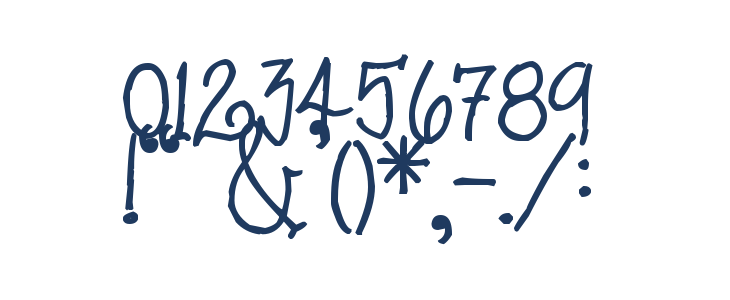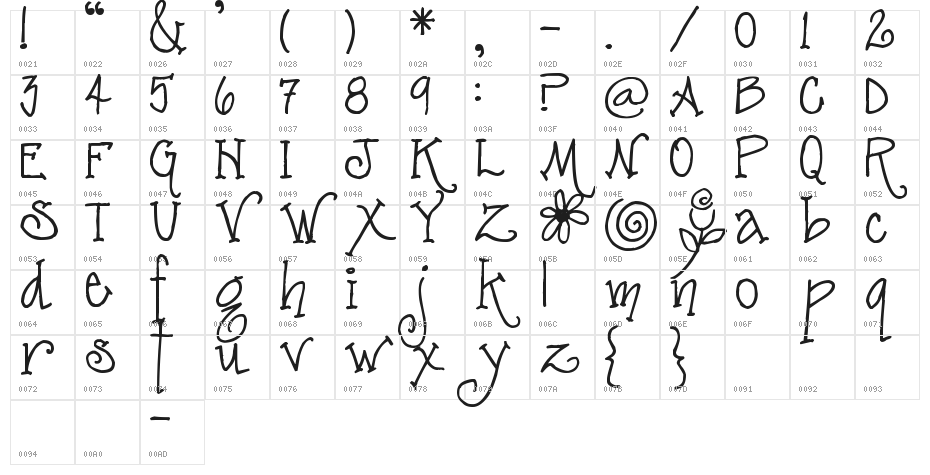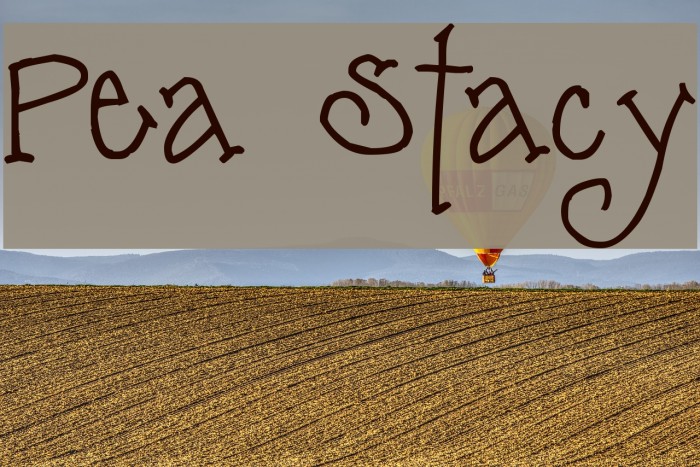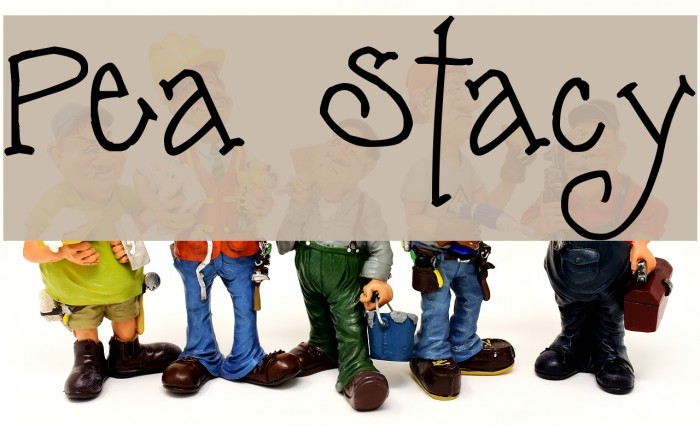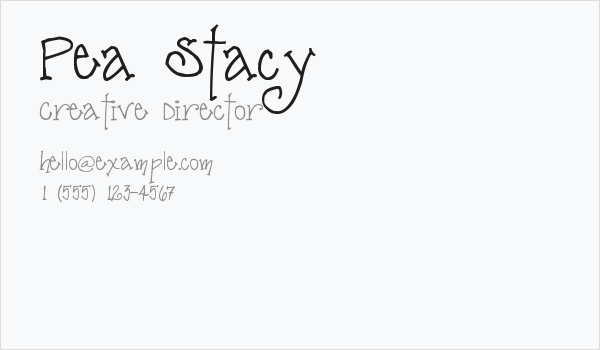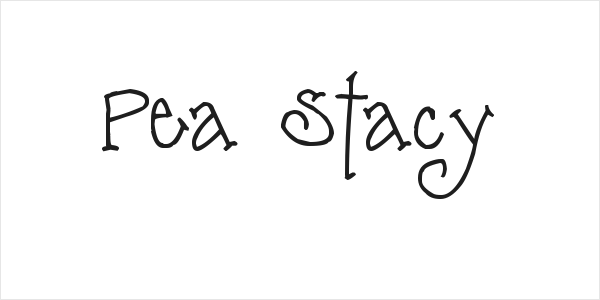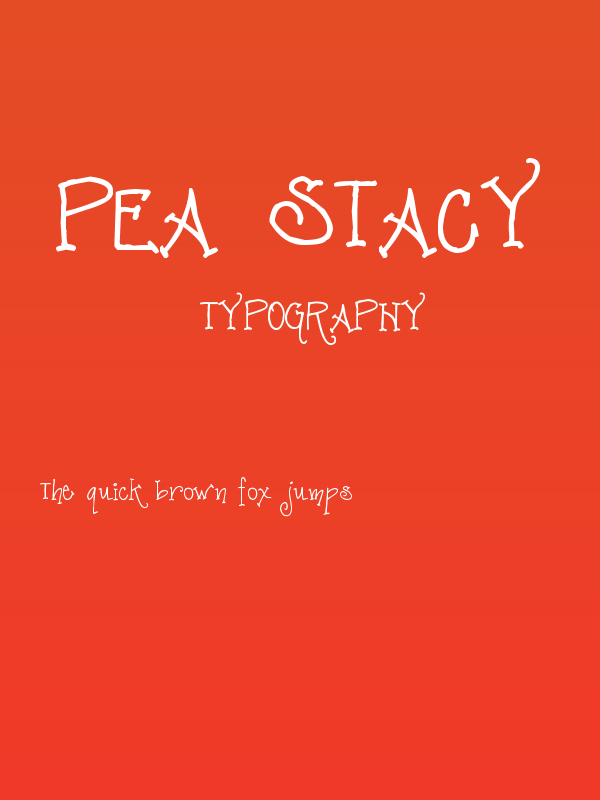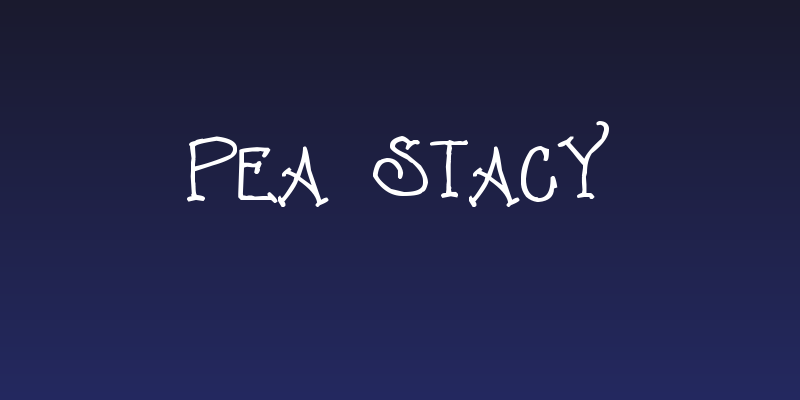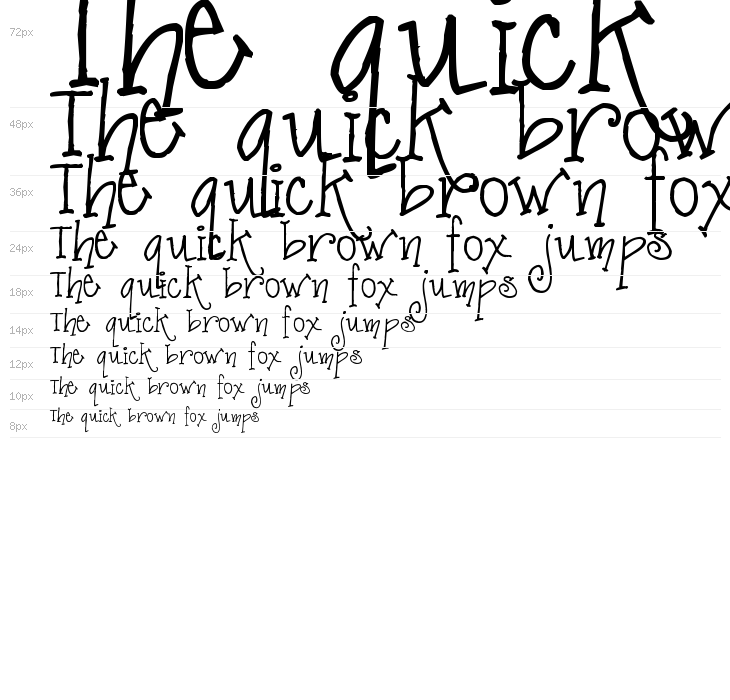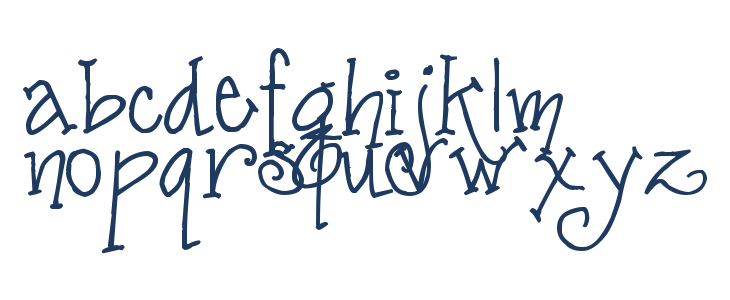
This font exudes a playful and whimsical charm, characterized by its handwritten style with a touch of elegance. The letters are slightly irregular, giving it a personal and informal feel. The uppercase letters are tall and slender, with unique flourishes that add a decorative element. The lowercase letters maintain a consistent style, with some characters featuring loops and curls that enhance its playful nature. The numbers are bold and distinct, ensuring readability while maintaining the font's overall quirky aesthetic. Special characters are creatively designed, fitting seamlessly with the rest of the font's style.
Use CaseLogos, Headlines, Invitations
Proposed ProjectsIdeal for greeting cards, children's books, playful branding, and creative invitations.